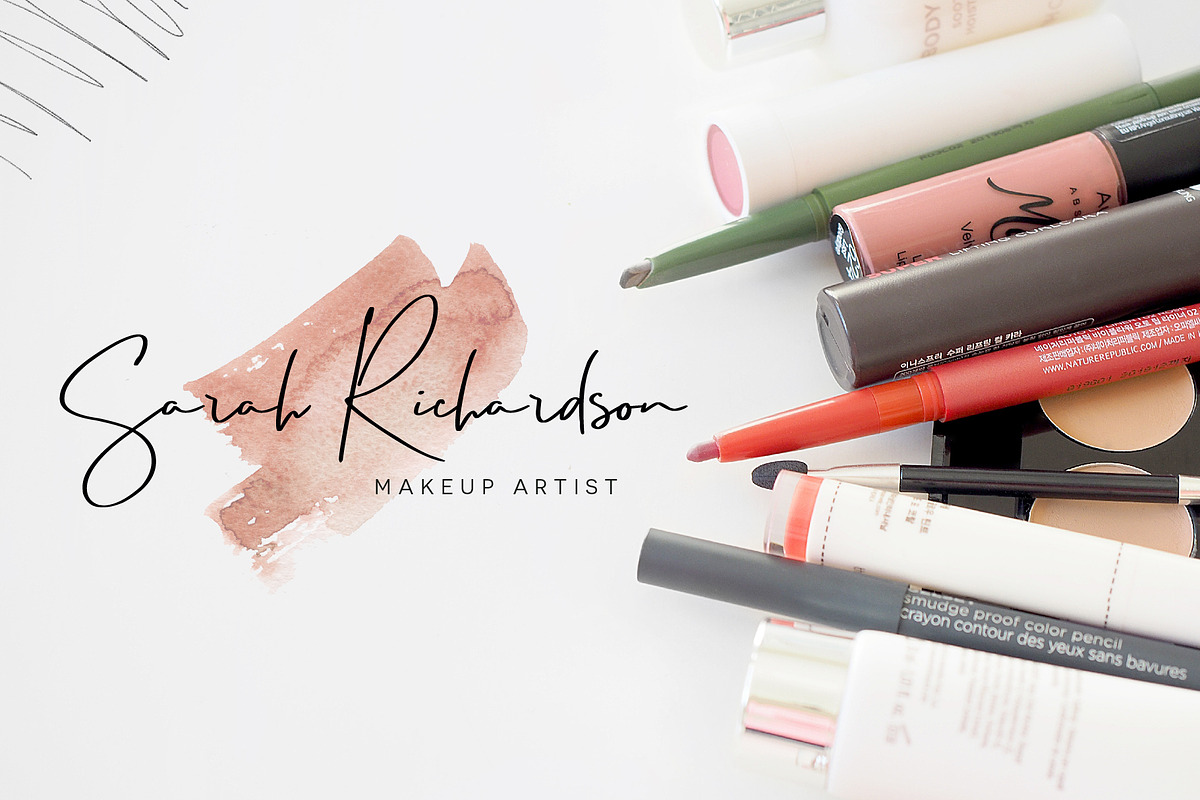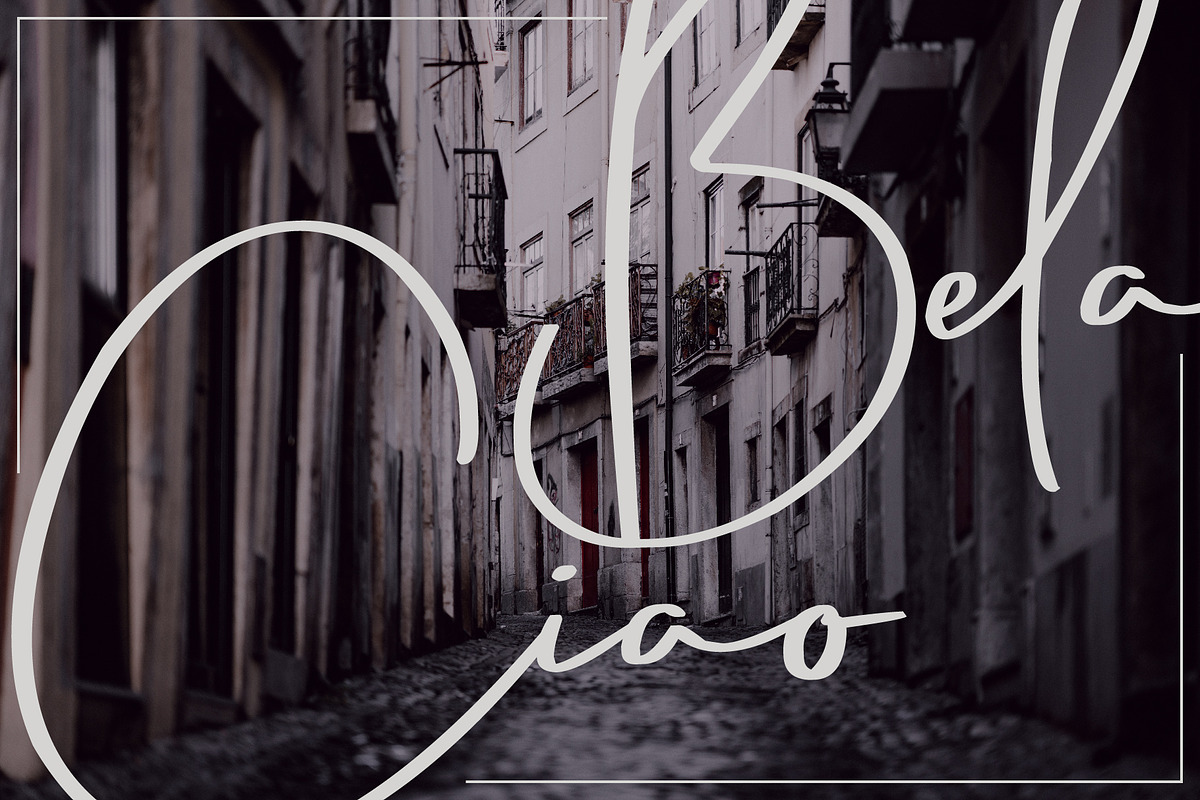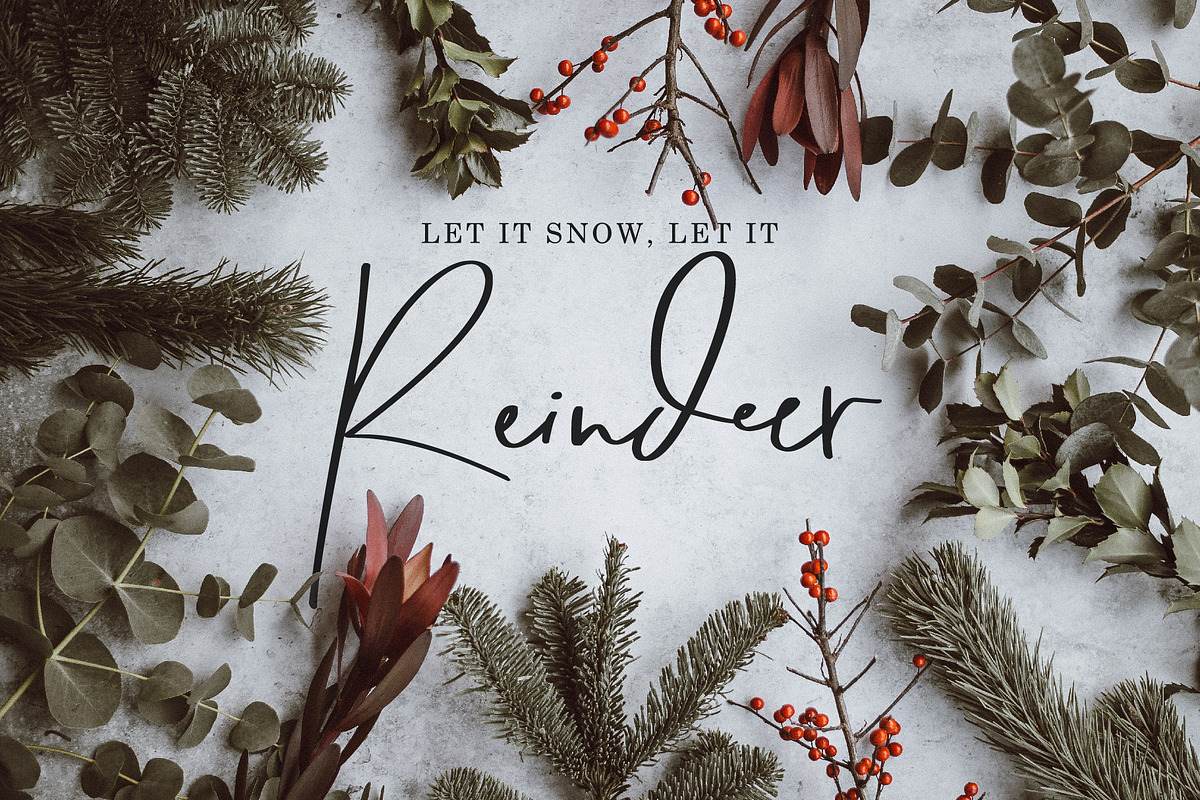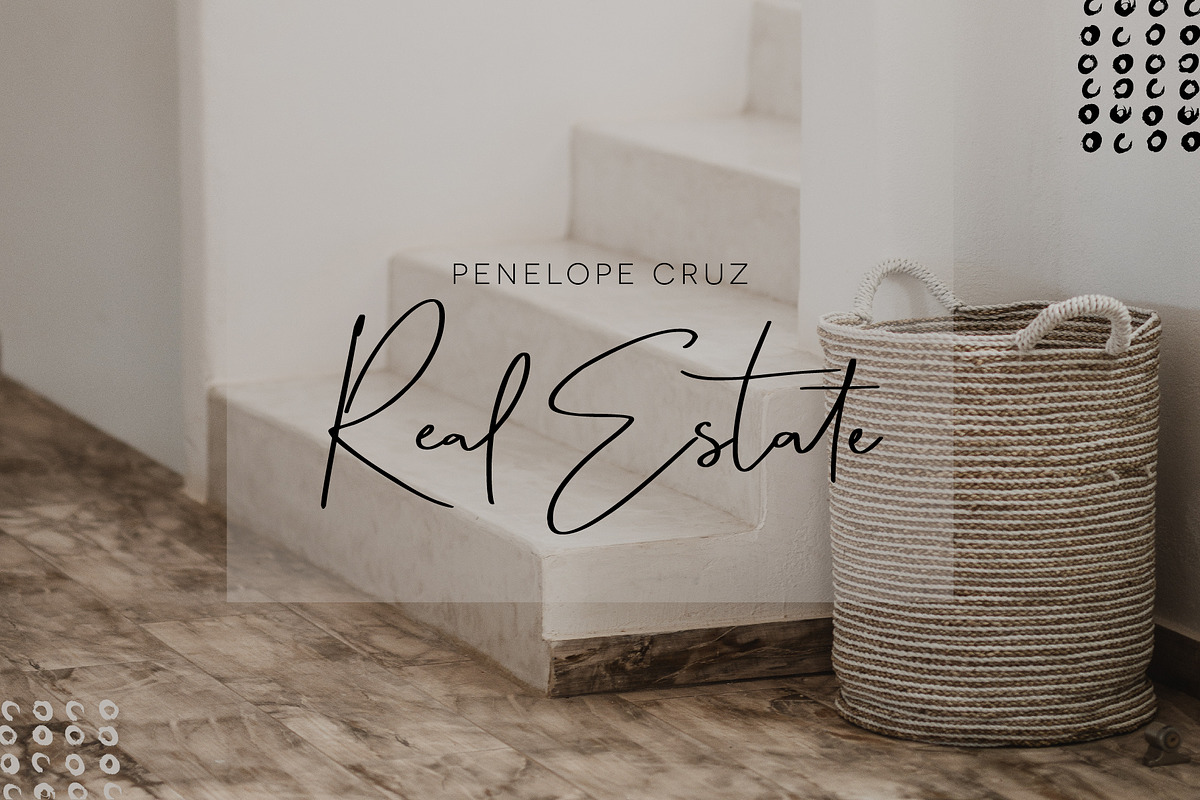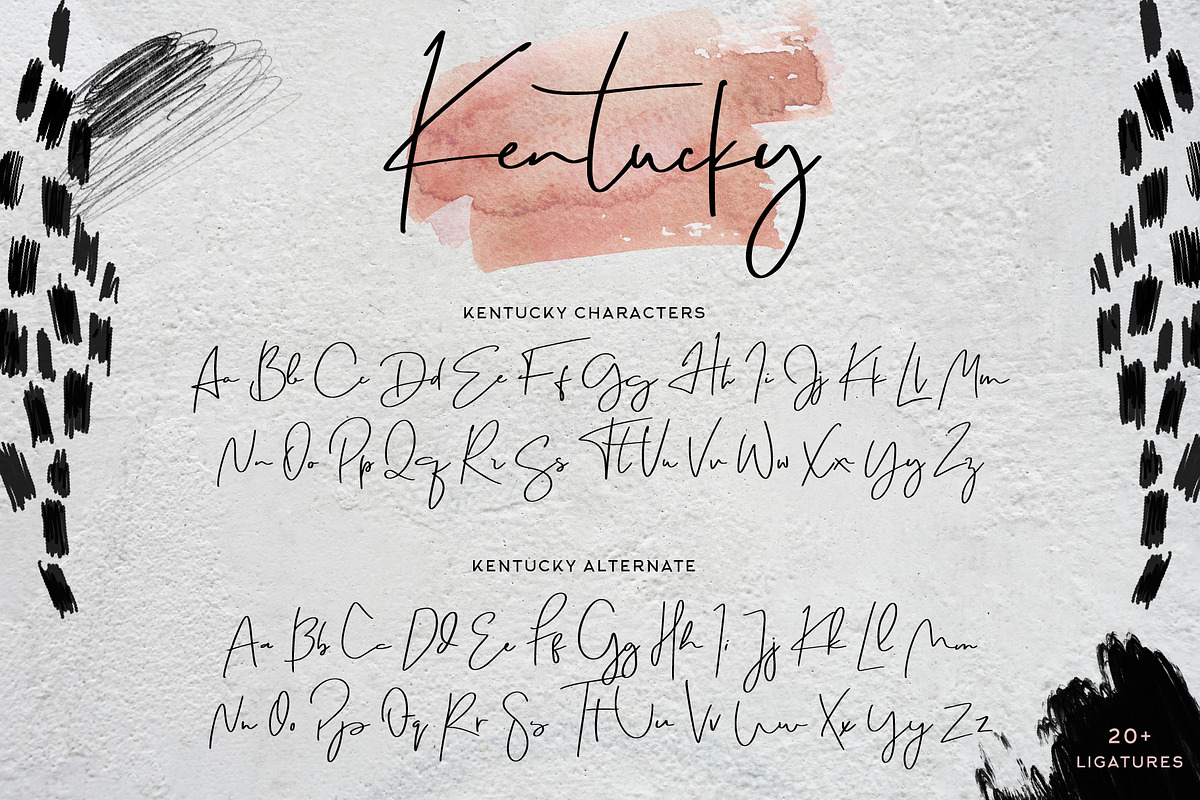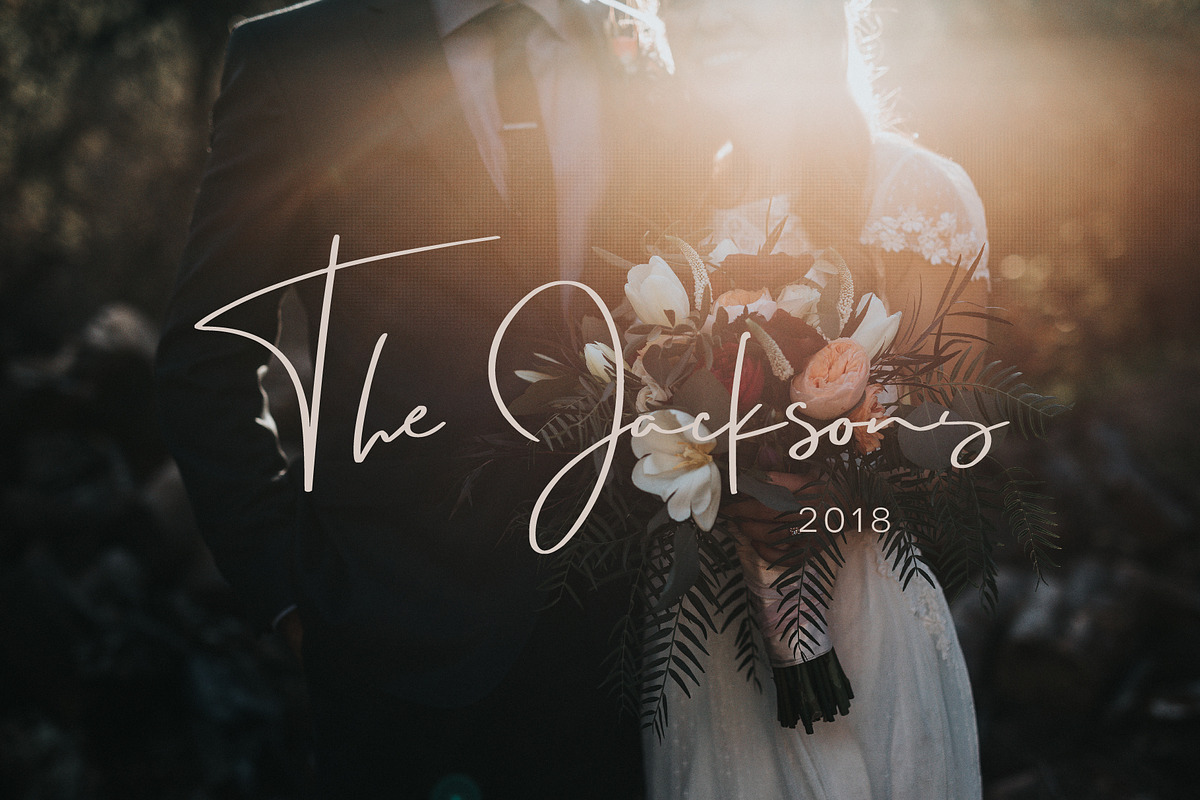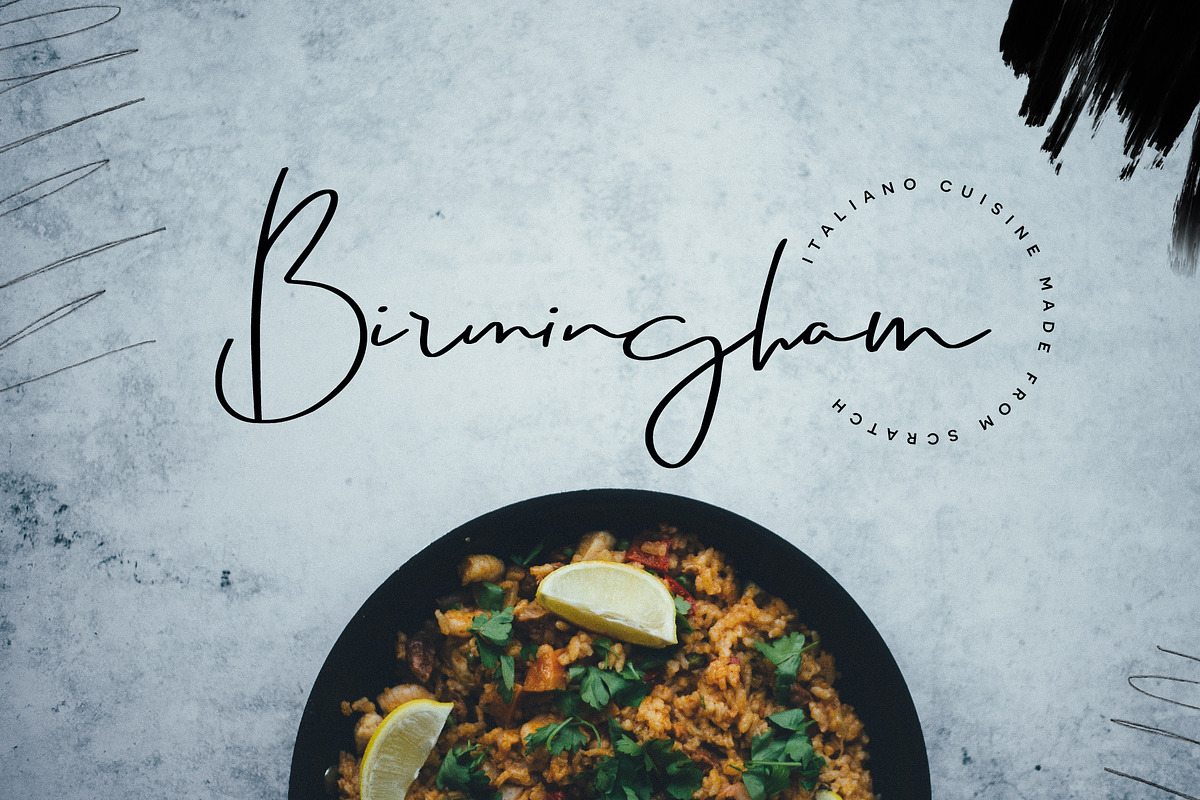
Kentucky Font
Kentucky is a stylish signature script that's sleek and professional. Perfect for logos, prints, invites, and more! It comes with a full set of alternate characters both upper case and lowercase. Mix-n-match and give your designs that eye-grabbing aesthetic everyone wants.
Over 20 Ligature Sets (al, at, ch, ck, cl, ee, ef, el, et, gh, it, lk, ll, ot, nt, sh, sl, ss, st, tt, ut)